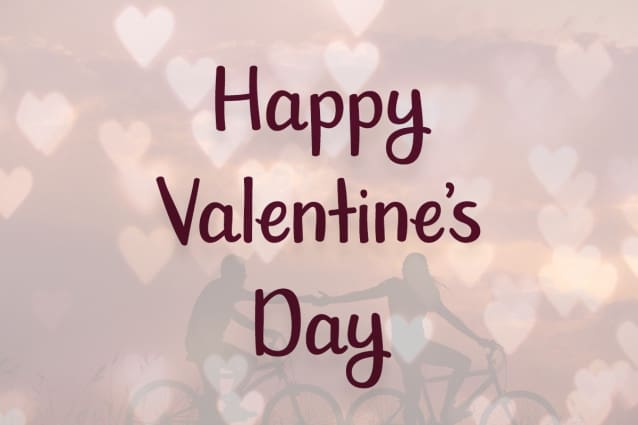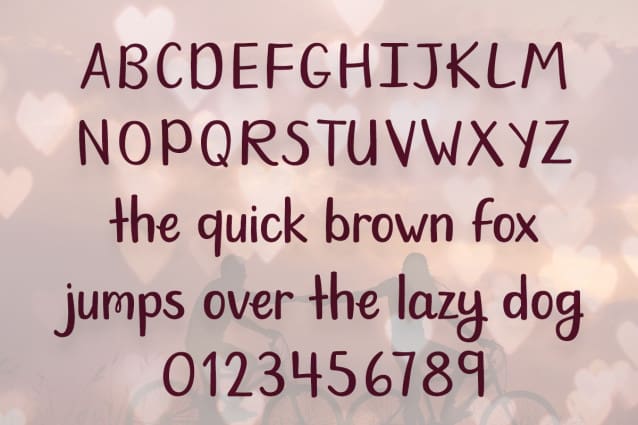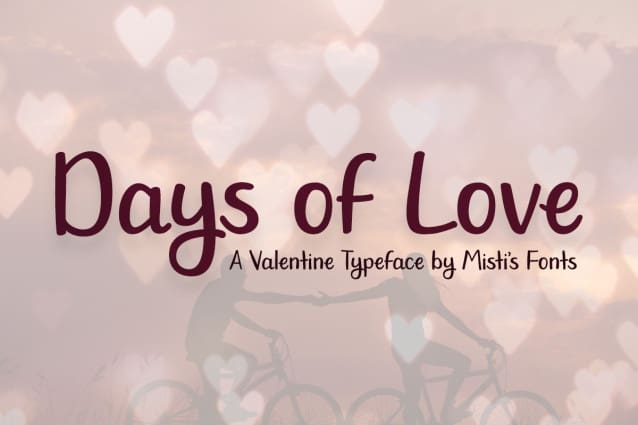
Days Of Love Font
Days Of Love Font. This charming handwritten font exudes warmth and playfulness, perfect for Valentine’s Day projects. Whether it’s cards, invitations, or love notes, Daysof Love adds a heartfelt touch to every design. Let love shine through!